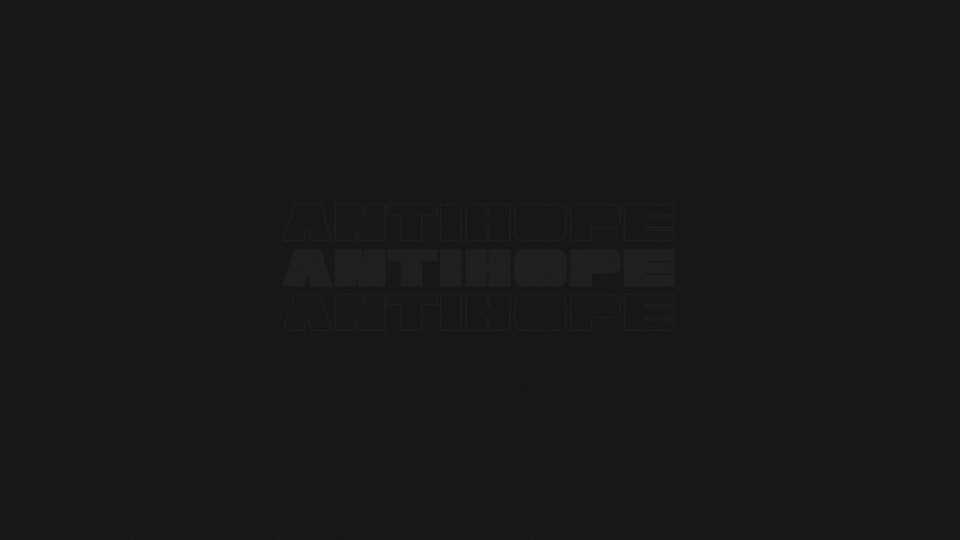
Download Antihope font, a heavy display typeface that commands attention with its robust and powerful presence. Antihope font is perfect for projects that demand a strong and impactful typographic element
Designer: Ian Langley